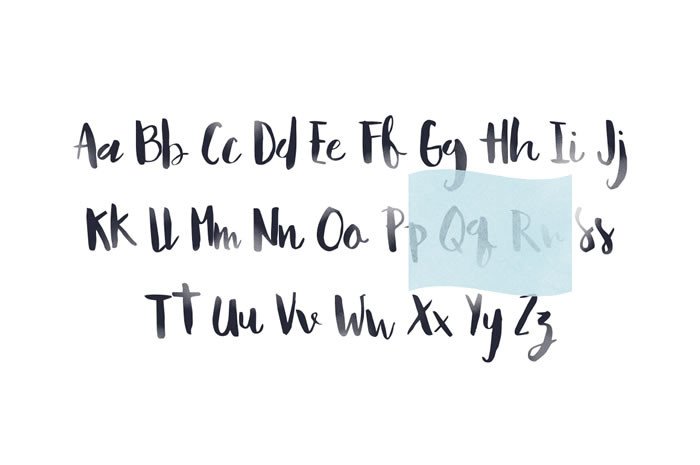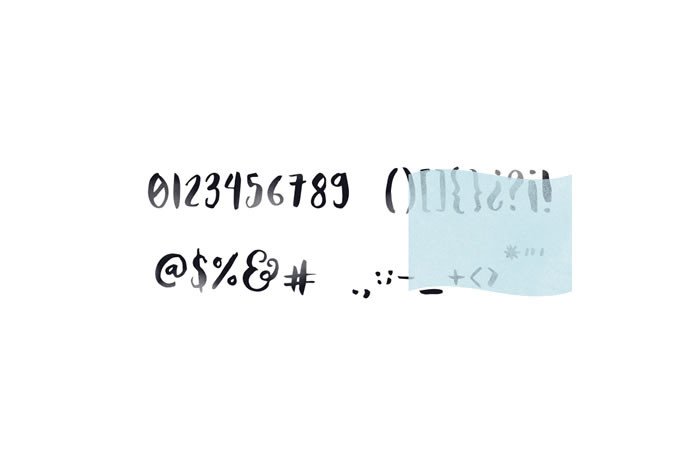
Hawaii Font: A Tropical Typeface Inspired by the Sun
Are you looking for a font that captures the essence of the tropical paradise of Hawaii? Look no further than the Hawaii Font, a beautiful typeface inspired by the sun and perfect for a variety of design projects. This stunning font is sure to bring a touch of aloha spirit to your logos, invitations, posters, quotes, letterheads, birthdays, and more!
A Font that Embodies the Spirit of Hawaii
The Hawaii Font is a unique and creative typeface that embodies the warm and sunny spirit of the Hawaiian islands. Its design is inspired by the sun, with flowing lines and curves that evoke the feeling of a tropical paradise. The font’s smooth and rounded edges give it a friendly and approachable feel, making it perfect for a wide range of design applications.
This beautiful typeface is perfect to use for:
- Logos: Create a memorable and eye-catching logo for your business or brand with the Hawaii Font.
- Invitations: Add a touch of tropical flair to your wedding invitations, birthday party invites, or other special event announcements.
- Posters: Create stunning posters for your business, event, or social cause with the Hawaii Font.
- Quotes: Add a touch of inspiration and motivation to your quotes with this beautiful font.
- Letterheads: Give your business correspondence a professional and stylish touch with the Hawaii Font.
- Birthdays: Create personalized and unique birthday cards, invitations, or decorations with this font.
Just imagine the wild things you can create with the Hawaii Font! With its unique and creative design, the possibilities are endless. You can use it to create:
- Tropical-themed party decorations and accessories
- Customized gifts, such as mugs, t-shirts, and tote bags
- Beautiful and eye-catching social media graphics
- Stunning website headers and titles
- And much more!
Why Choose the Hawaii Font?
There are many reasons why the Hawaii Font is a great choice for your design projects:
- Unique and creative design inspired by the sun
- Perfect for a wide range of design applications
Tips for Using the Hawaii Font
Here are some tips for getting the most out of the Hawaii Font:
- Use it in combination with other fonts to create a unique and eye-catching design
- Pay attention to font size and spacing to ensure readability
- Use it consistently across different platforms and devices
| Font Name | Hawaii Font |
| Author | Noe Araujo |
In conclusion, the Hawaii Font is a beautiful and versatile typeface that is perfect for designers and crafters looking to add a touch of tropical flair to their design projects. With its unique and creative design inspired by the sun, it’s perfect for a wide range of applications, from logos and invitations to posters and quotes. So why not give it a try and see what amazing creations you can come up with?